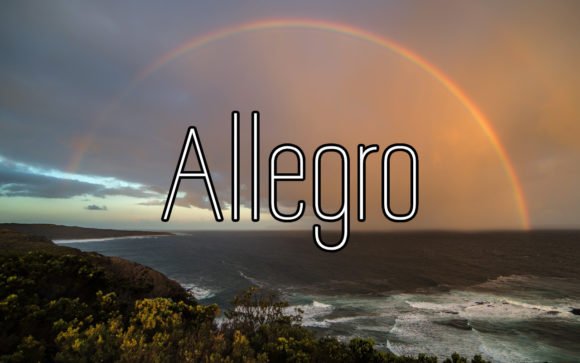
Introduction to Allegro Font
Allegro is a stunning, beautiful and flowing font.
It has beautiful and well balanced characters and as a result, it matches a wide pool of designs Add it to your most creative ideas and notice how it makes them come alive.
Key Features of Allegro Font
Why Choose Allegro Font?